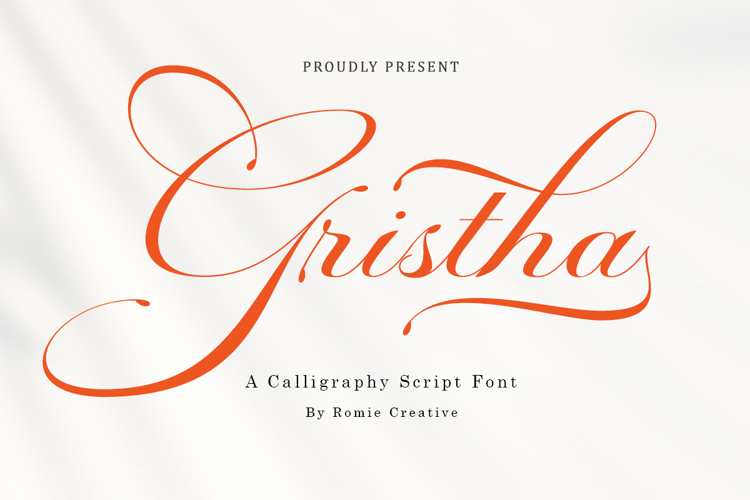
Gristha Script is an elegant modern calligraphy font that exudes luxury and sophistication. With its flowing strokes, graceful curves, and refined letterforms, Gastonia is perfect for wedding invitations, branding, upscale packaging, and editorial designs. Its timeless charm and decorative flair make it a go-to choice for designers looking to add a touch of romance and class to their work.